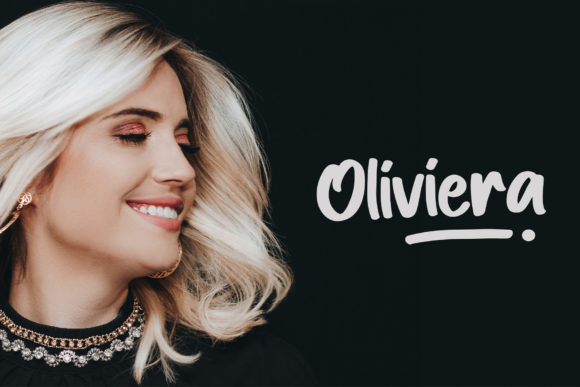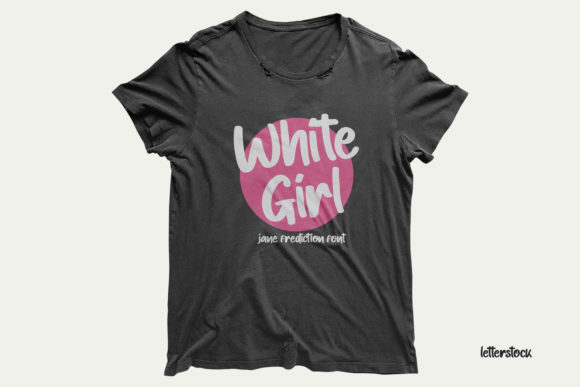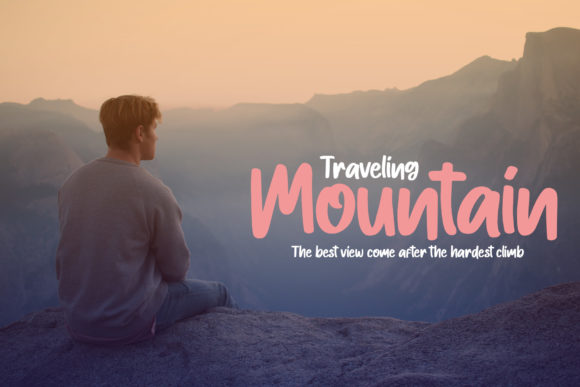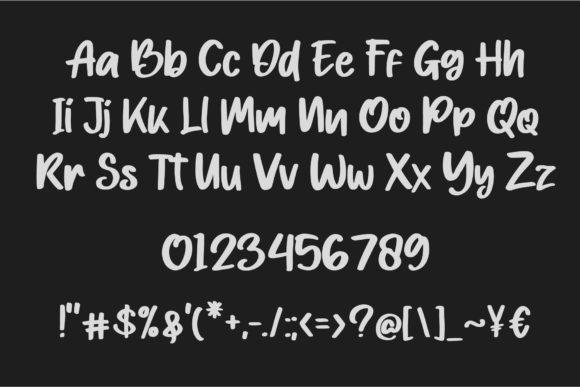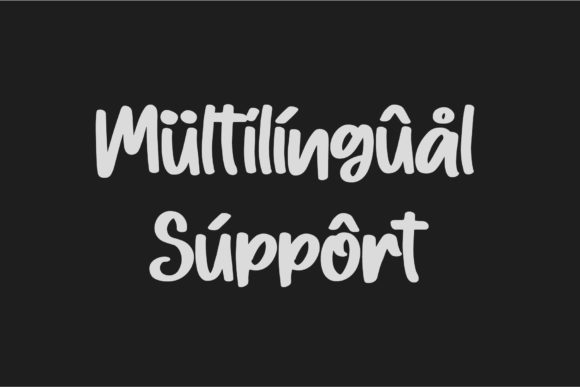
Introduction to Jane Frediction Font Font
Fonts play a crucial role in design, and the Jane Frediction Font font is a typeface that brings both character and versatility to any project. Whether you’re working on a branding project, a website, or a print design, the Jane Frediction Font font offers a unique style that can elevate your work.
Jane Frediction is a cute, natural and trendy display font.
It is suitable for any branding, product packaging, invitation, quote, t-shirt, label, poster, logo that you wish to create .
Key Features of Jane Frediction Font Font
Why Choose Jane Frediction Font Font?
The Jane Frediction Font font is more than just a typeface – it’s a design tool that helps you communicate your message with style and clarity. Its unique character set and versatile design make it suitable for a wide range of applications, from elegant invitations to bold headlines.
With its carefully crafted letterforms and balanced proportions, the Jane Frediction Font font ensures readability and visual appeal across all mediums.
What makes Jane Frediction Font font special?
The Jane Frediction Font font stands out with its unique design, exceptional readability, and versatility across various design applications.